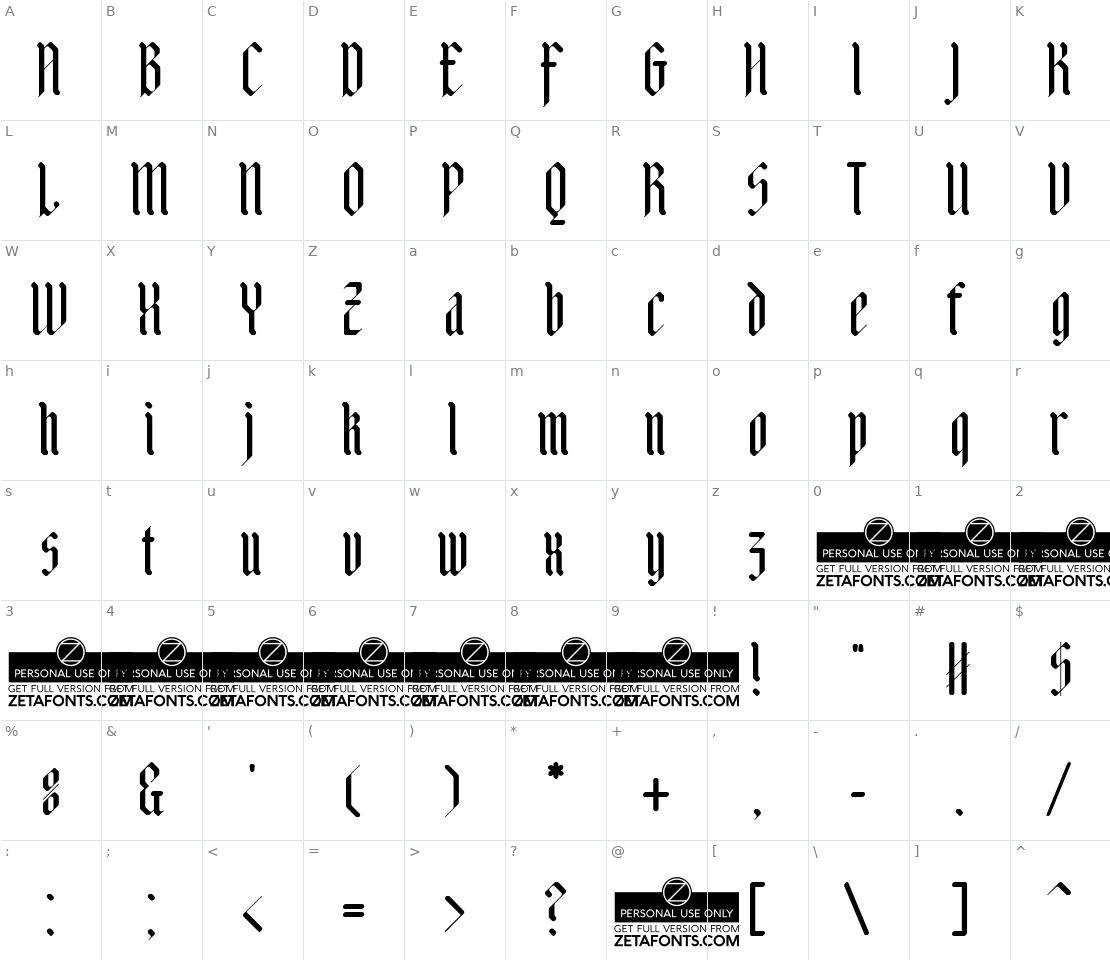
Adlibitum
Adlibitum is a bold, condensed blackletter from Zetafonts that captures the dense, vertical rhythm of medieval textura scripts while keeping things surprisingly readable for the genre. The narrow letterforms pack tightly together with dramatic weight and sharp angular details, giving headlines and display text an imposing, archaic presence. Best reserved for large sizes where the gothic detailing can do its work, from event posters to album art to anything that needs a serious dose of dark historical gravitas.